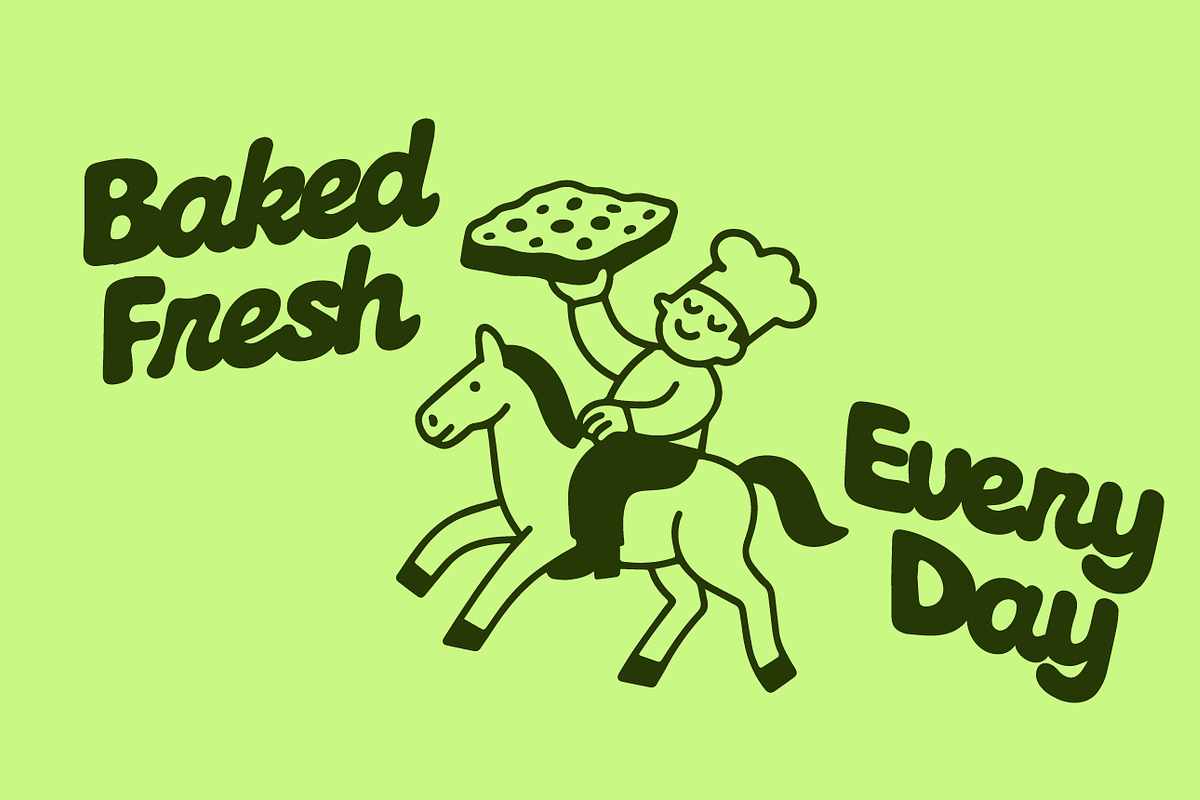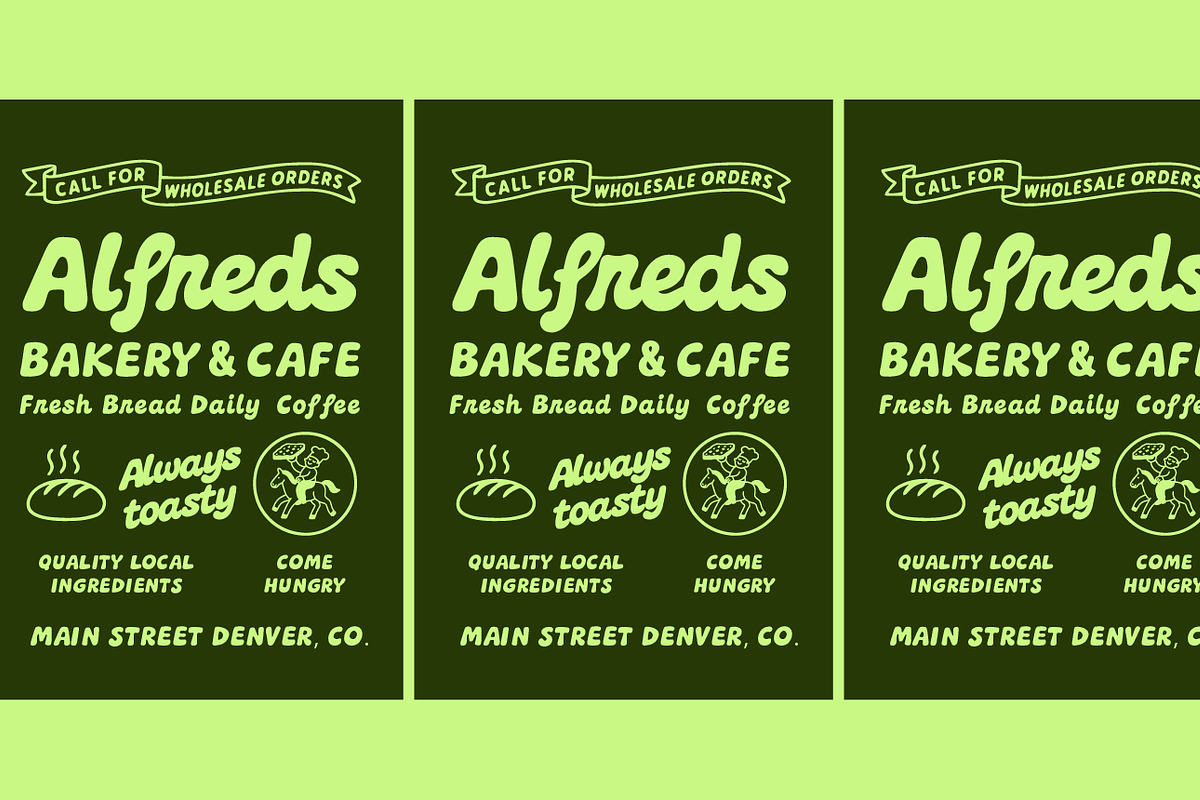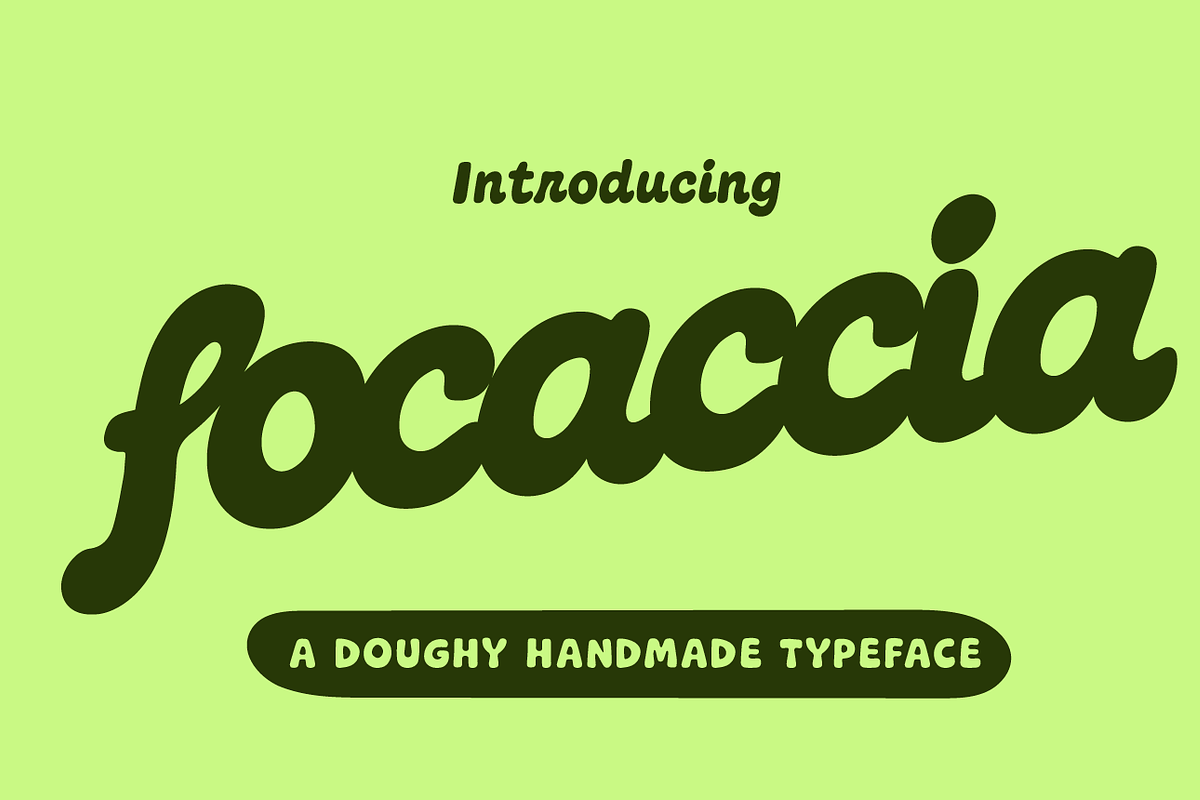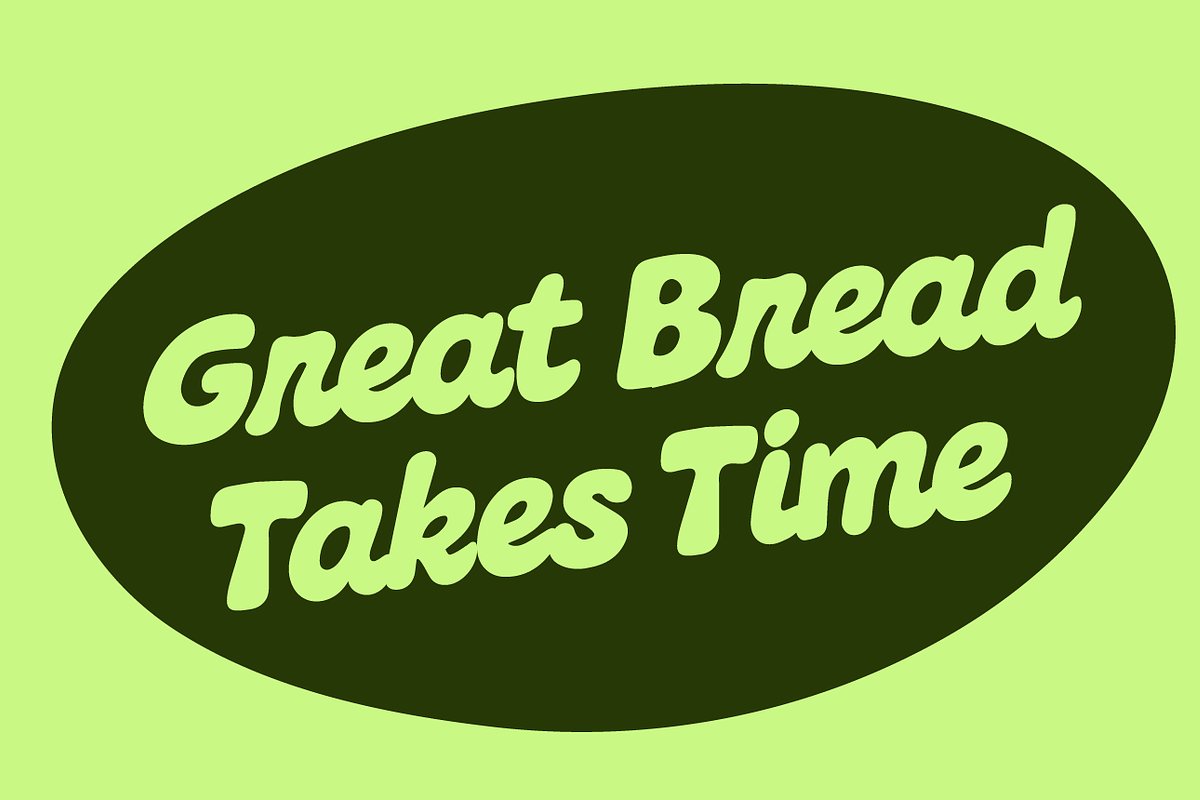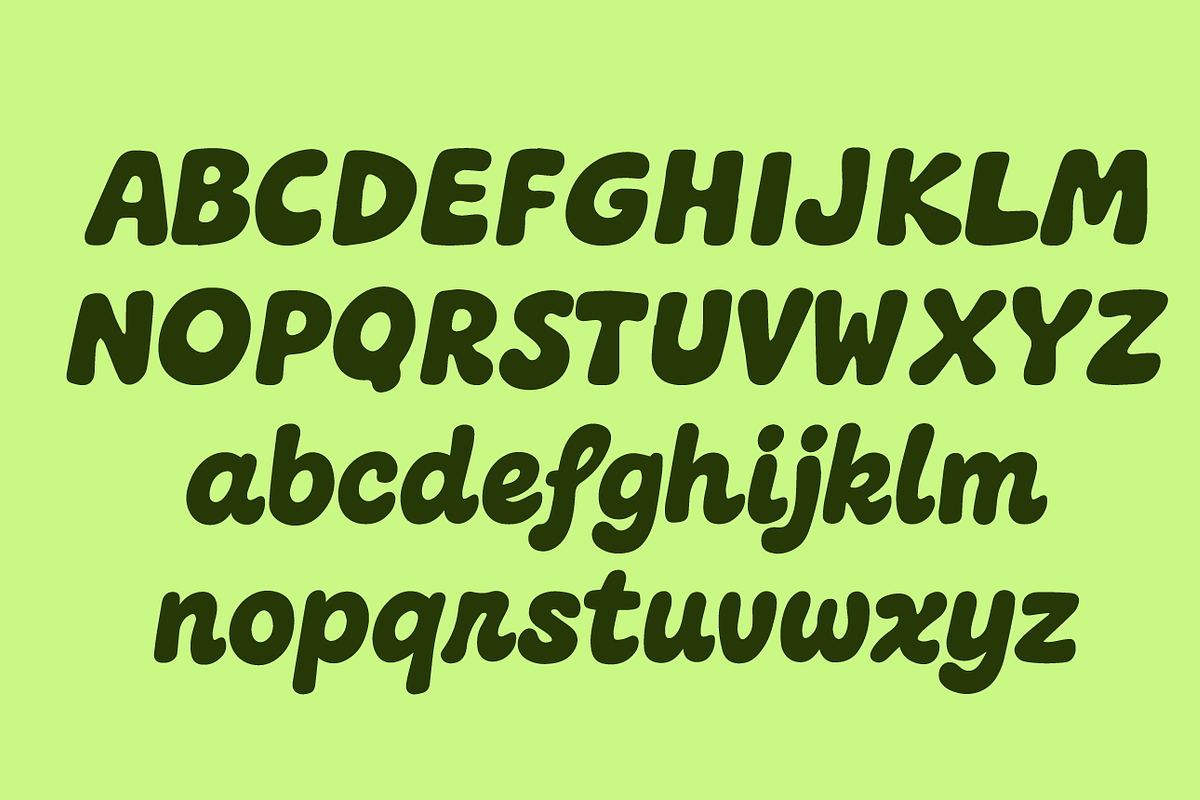
Focaccia — Display & Script Typeface
Focaccia — A Warm, Playful Typeface That Rises to the occasion.
Meet Focaccia, a chunky, hand-crafted typeface inspired by vintage sign painting and retro diner menus — with a fresh, modern twist. Soft, rounded curves and charming imperfections give Focaccia its friendly, inviting personality, making it perfect for logos, packaging, posters, and any design that needs a touch of nostalgic warmth.
Available in bold uppercase, quirky lowercase script, and matching alternates, Focaccia is as versatile as your favorite bakery staple. Whether you’re branding an artisan café, crafting merch for your local farmers market, or designing a standout headline, Focaccia adds the perfect slice of personality.
Rise, spread, and share the warmth — bring your next project to life with Focaccia.